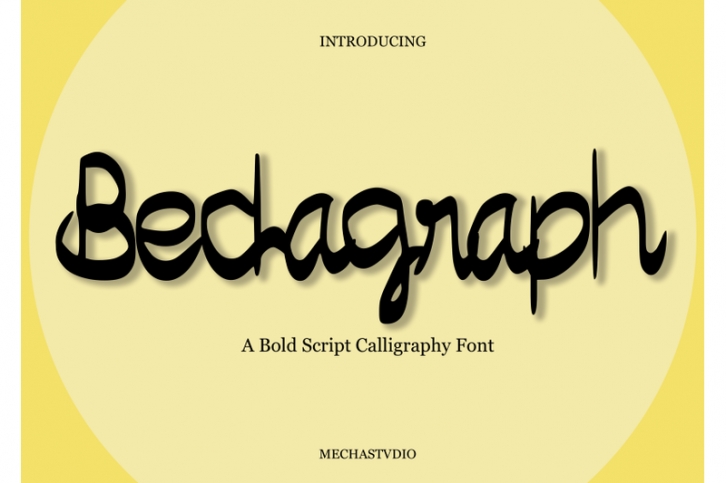
Bedagraph FONT Download
Bedagraph Font Download
Bedagraph is a thin and cool script font. It has a classy, elegant, and modern look, perfect for logos, branding, invitations, stationery, wedding designs, social media posts, and more.